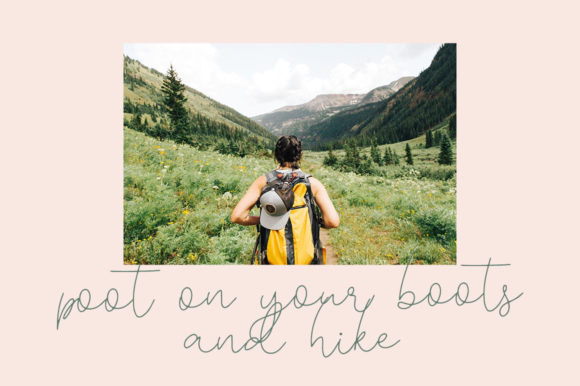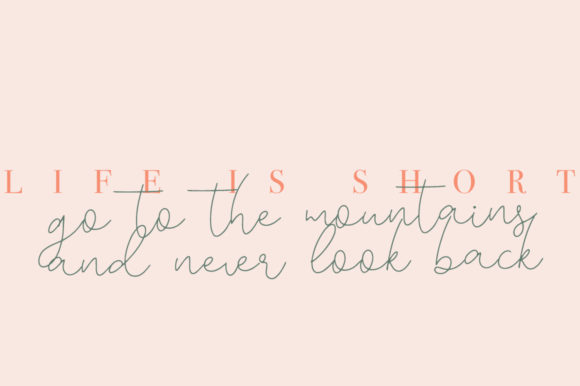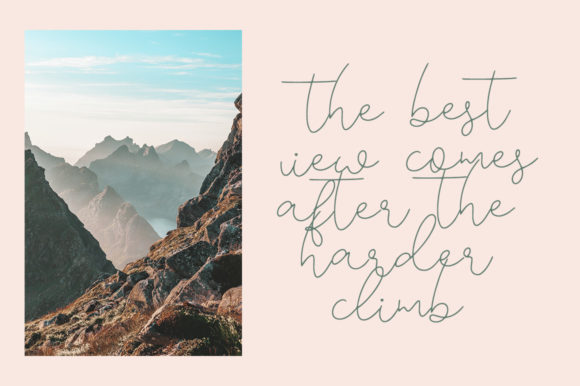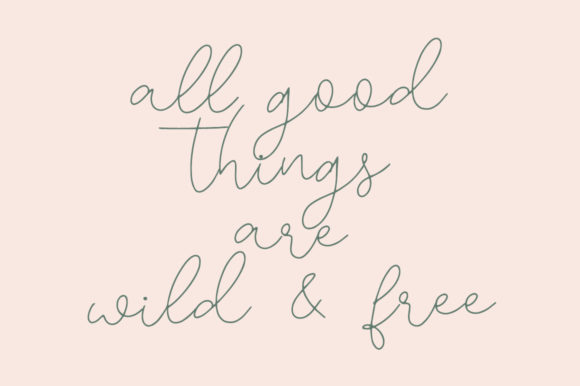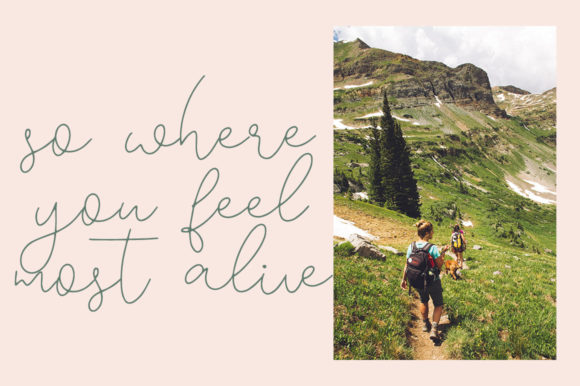
About Mountain Font
Mountain is a sweet, whimsical, flowing and thin script font. Featuring characters that dance along the baseline, this font will add a luxury spark to any design project that you wish to create!